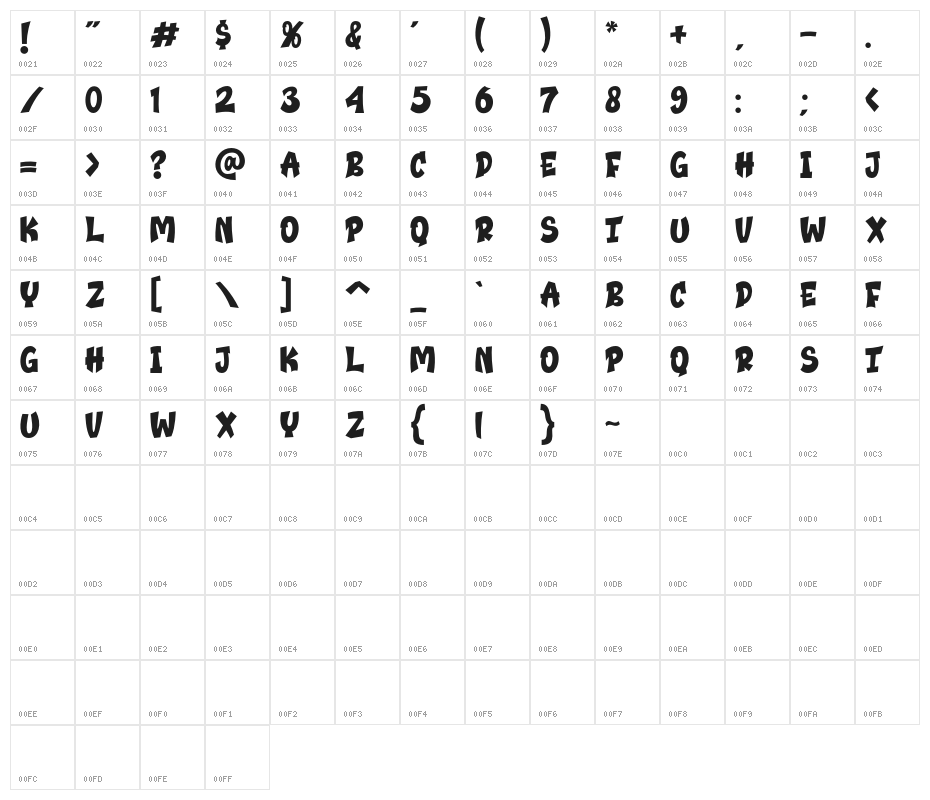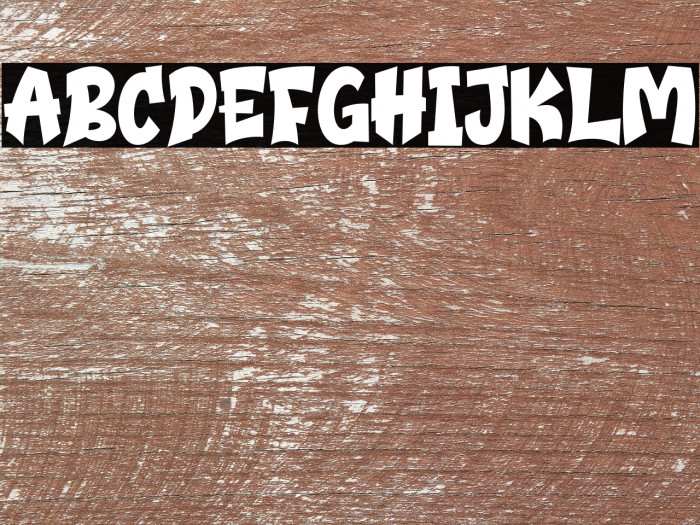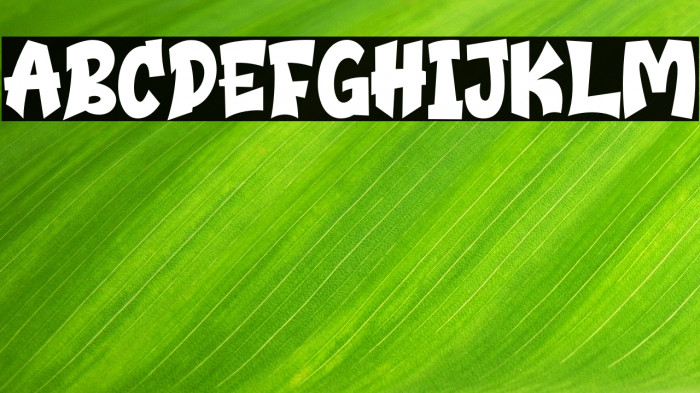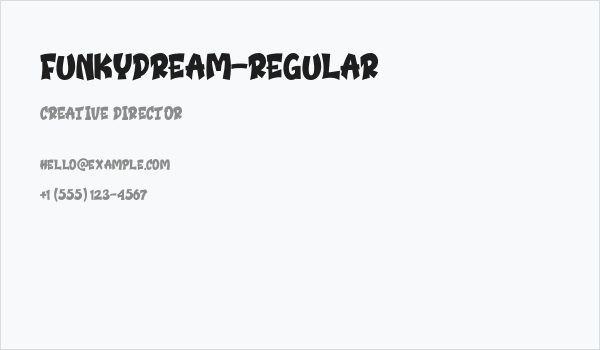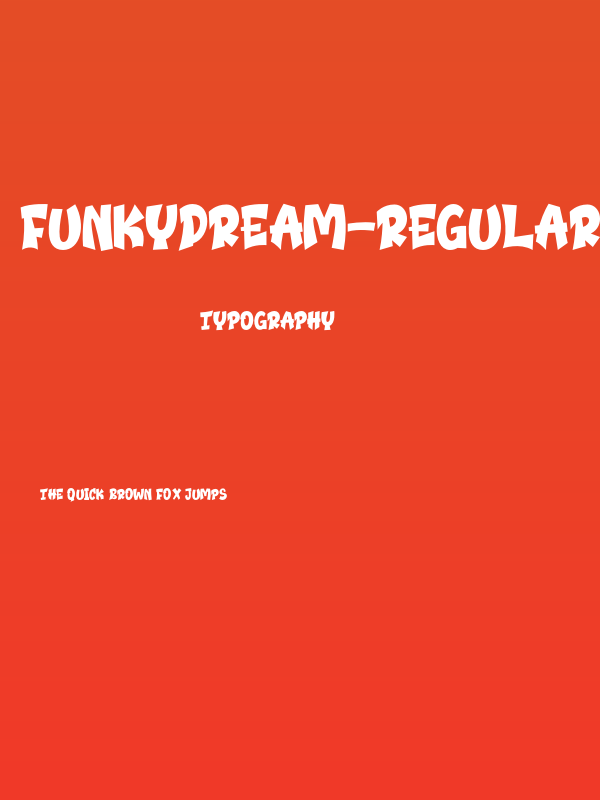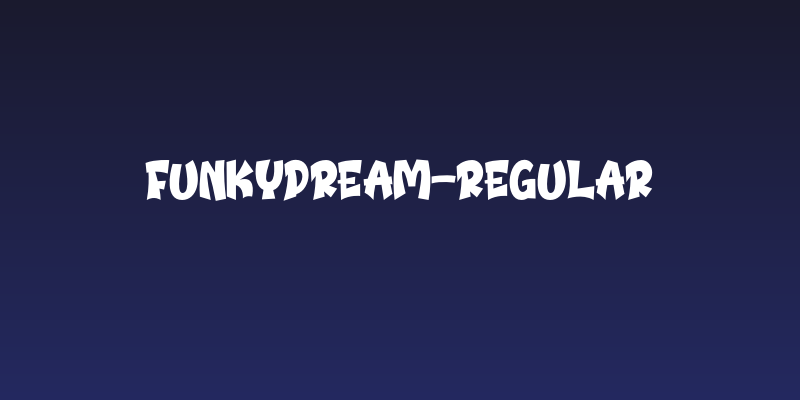
FunkyDream-Regular Font
FunkyDream-Regular Description
This font exudes a playful and energetic vibe, characterized by its bold and exaggerated letterforms. The letters have a whimsical, almost cartoonish appearance, with uneven strokes and quirky angles that give it a dynamic feel. The uppercase and lowercase letters maintain a consistent style, while the numbers and special characters complement the overall design. The font's thick strokes and irregular shapes make it stand out, ideal for grabbing attention in creative projects.
| Overall Style | Playful, Energetic, Whimsical |
| Proposed Projects | Ideal for children's books, comic strips, playful branding, party invitations, and eye-catching posters. |